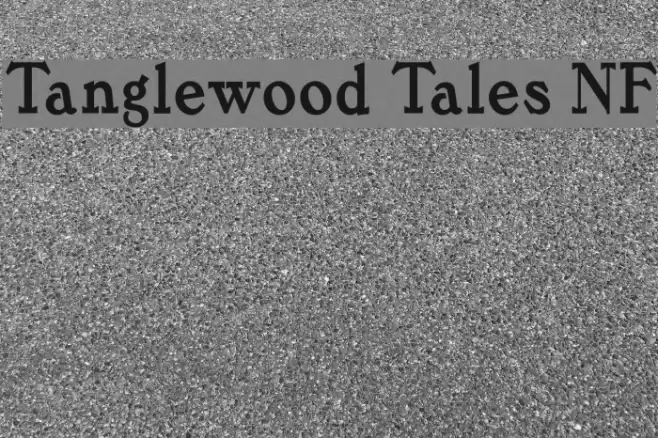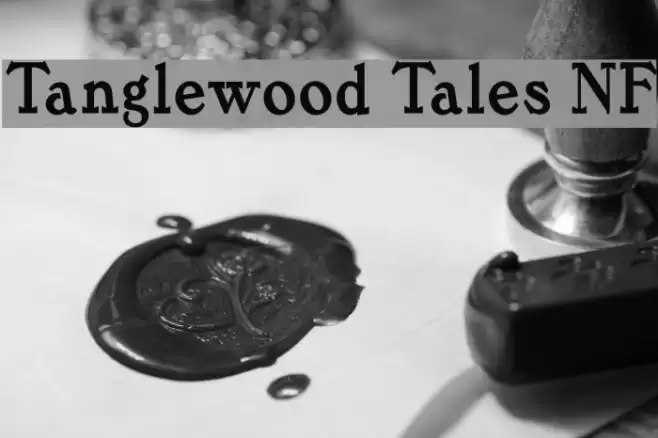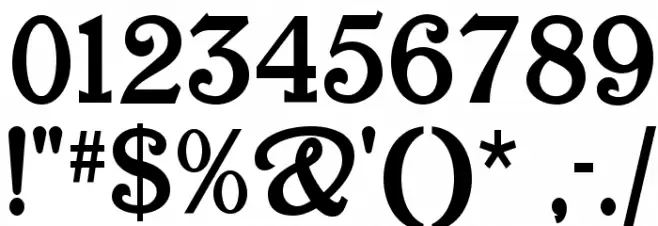
Tanglewood Tales NF Font
Tanglewood Tales NF Description
This font exhibits a classic serif style with pronounced, bracketed serifs and a strong, authoritative presence. The uppercase letters are bold and commanding, while the lowercase letters maintain a consistent weight, offering a harmonious balance. The numerals are distinct and clear, with a traditional appearance that complements the overall design. Special characters are well-integrated, maintaining the font's cohesive aesthetic. The font's structure is robust, making it suitable for a variety of formal and traditional applications.
A classic serif font with bold, bracketed serifs and a strong, traditional presence from Serif fonts.
- Proposed Projects: Ideal for book covers, formal invitations, editorial headlines, and branding that requires a classic touch.
- Overall Style: Classic
- Use Case: Headlines, Logos, Editorials